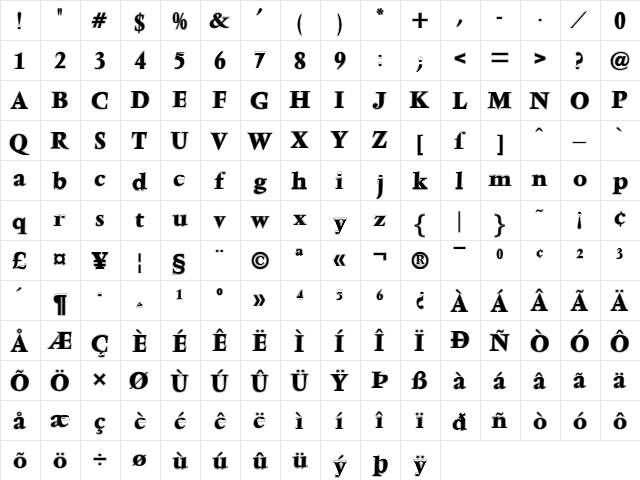
VenturaInline-Bold Regular
Design Context for VenturaInline-Bold Typeface
VenturaInline-Bold brings ornamental detail and strong personality to headlines and identities, where visual impact matters more than quiet functionality. Its bold stroke weight gives it real presence on the page.
Font Pairing: Pair with a clean neutral sans-serif for body copy to let VenturaInline-Bold's character lead without overwhelming the composition.
Pro Tip: Treat VenturaInline-Bold as the centrepiece of your typographic hierarchy. One strong heading set in a decorative face can carry an entire layout.